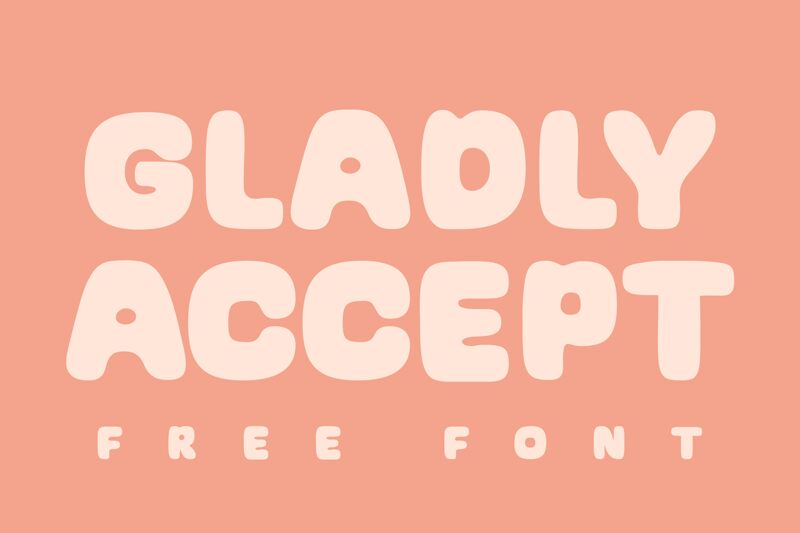
Gladly Accept Regular
Gladly Accept, crafted by the imaginative Niskala Huruf, stands out as a playful and dynamic display font with cartoon influences that effortlessly capture the essence of fun and creativity. Its semi-light weight paired with a semi-expanded width gives it a friendly and approachable presence that is both legible and artistically engaging.
The characters in Gladly Accept boast whimsical curves and a subtle bounciness, suggesting movement and energy. This makes the font an excellent choice for projects aiming to evoke cheerfulness and lightheartedness. From children's books to party invitations or animated web content, Gladly Accept has the versatility to bring warmth and character to any medium.
Each letterform is designed with careful attention to detail, ensuring that despite its casual style, the typography maintains professionalism. The unique blend of aesthetic appeal woven into this typeface allows designers to craft messages that are not just read but felt, making every word an invitation into a world of imagination.
Whether you're looking to add a touch of whimsy to your brand or create standout graphics for social media campaigns, Gladly Accept is poised to elevate your creative projects with its charming personality and stylistic flair.